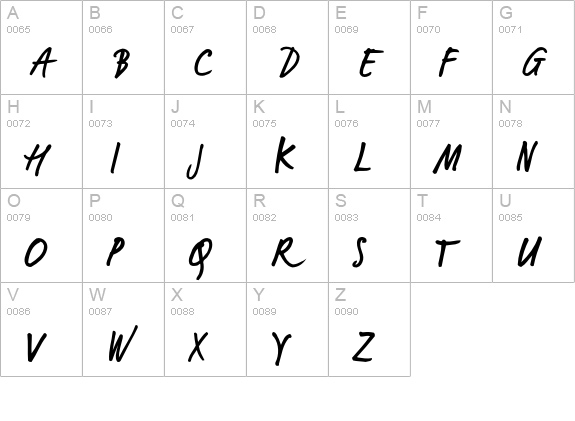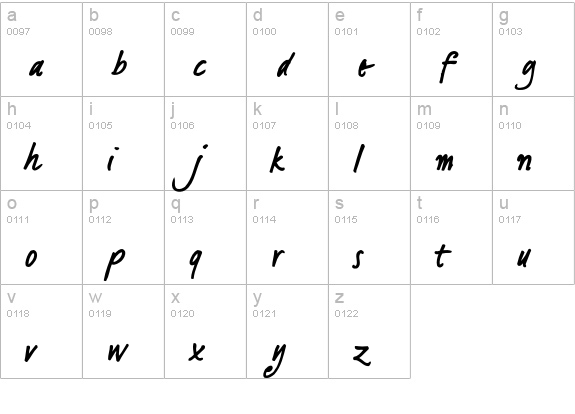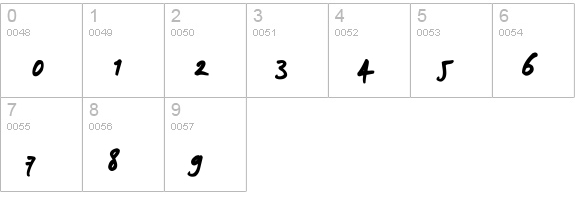
LucasHandFeetSemi Font Details
LucasHandFeetSemi font is a whimsical and playful typeface that combines elements of hand-drawn letters with a touch of elegance. Its unique design features a semi-bold weight that adds a sense of stability and presence to any text. The charming imperfections in the letterforms give this font a handmade feel, perfect for adding a personal touch to your projects. What sets LucasHandFeetSemi apart is that it is available for free download at FontsMarket.com. This means you can easily access this delightful font without any cost, making it a fantastic choice for those seeking a budget-friendly option for their creative endeavors. Whether you're designing invitations, posters, or social media graphics, LucasHandFeetSemi is sure to bring a touch of creativity and charm to your work. Download it today and let your imagination run wild with this delightful typeface!